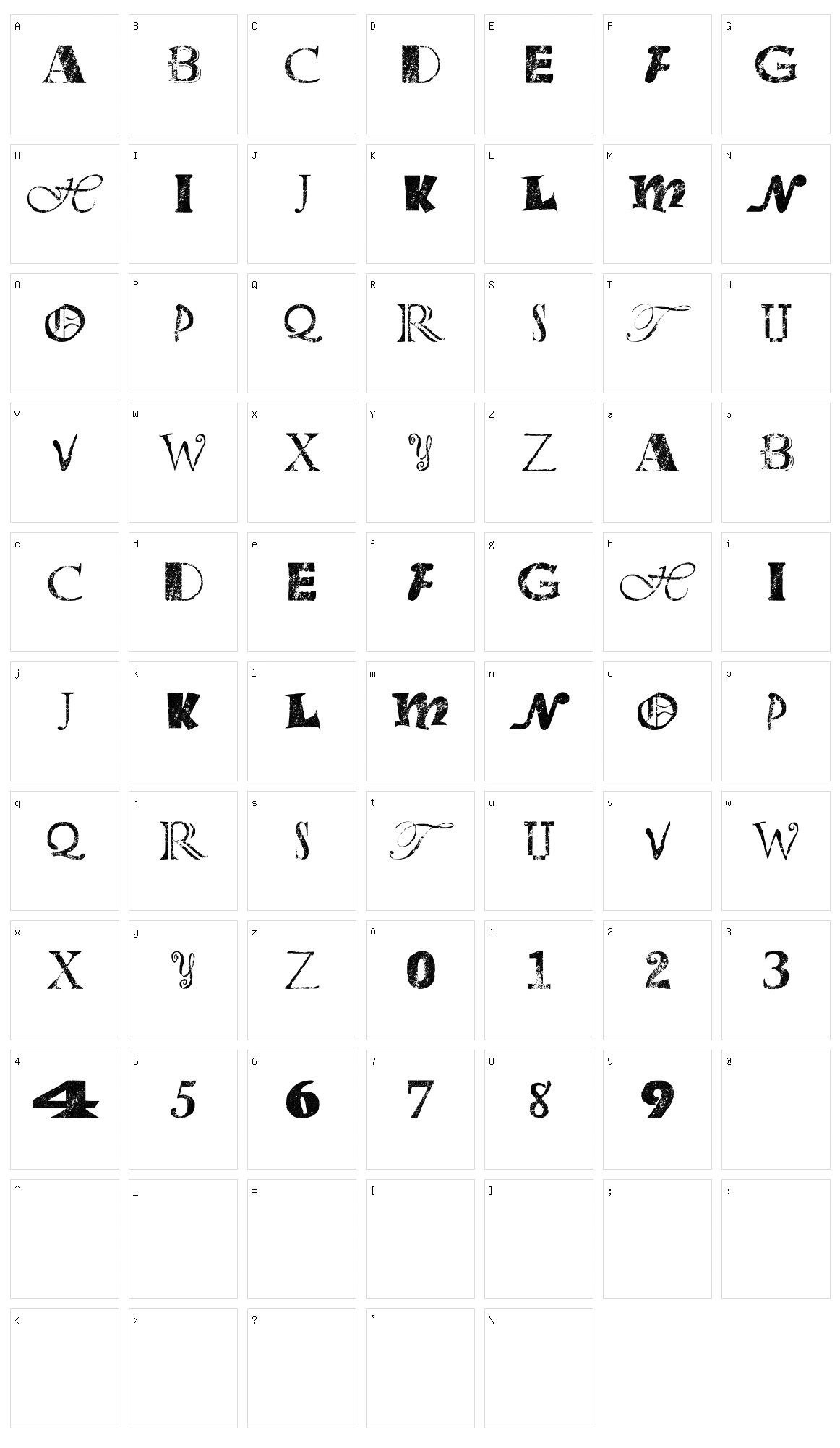
Office Junk Font
The Office Junk font is a grunge mixed style font. It was designed with FontLab Studio and Paint. This font is heavy to load. Due to the complexity of the font's characters, it comes with alphanumeric characters only and is only available in TrueType format. Read the terms of use at http://jlhfonts.blogspot.com/